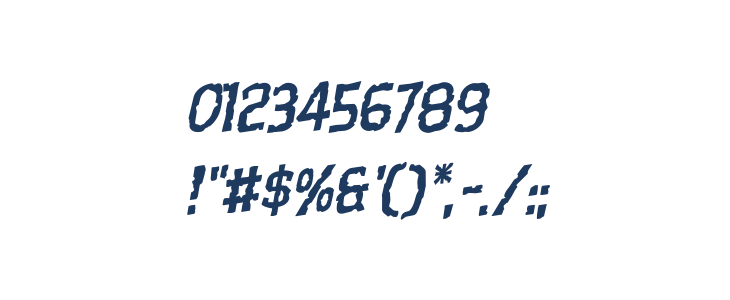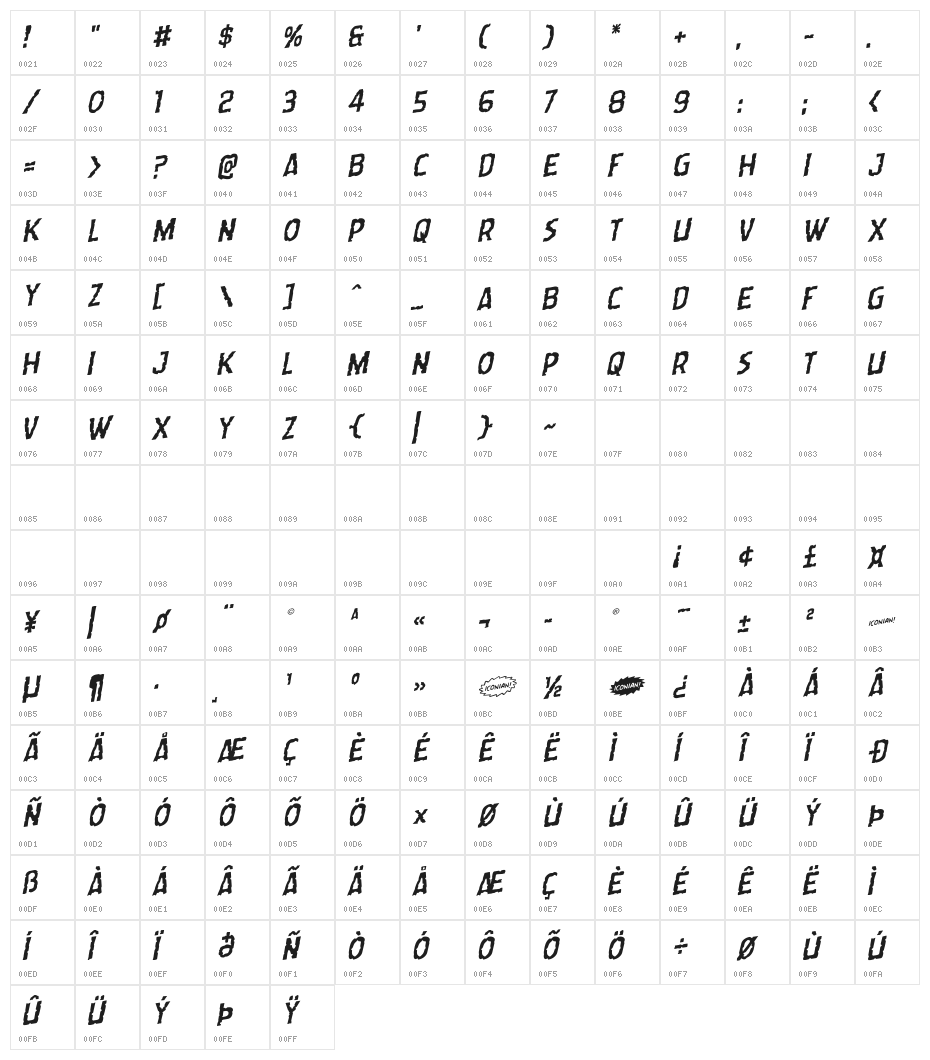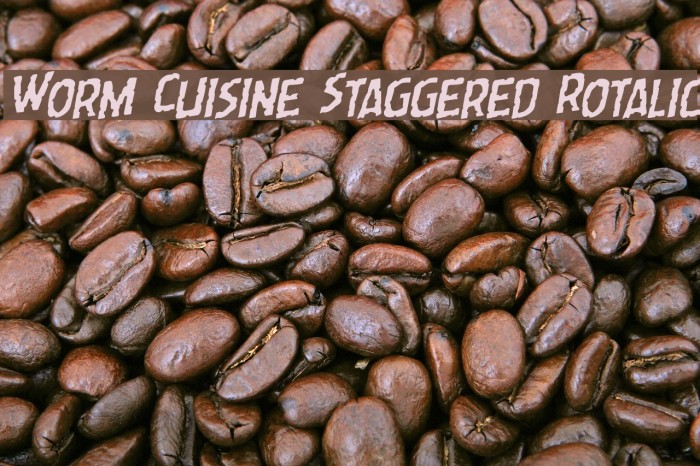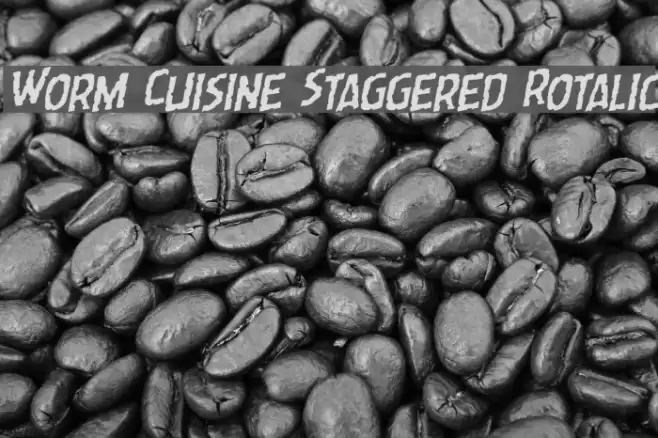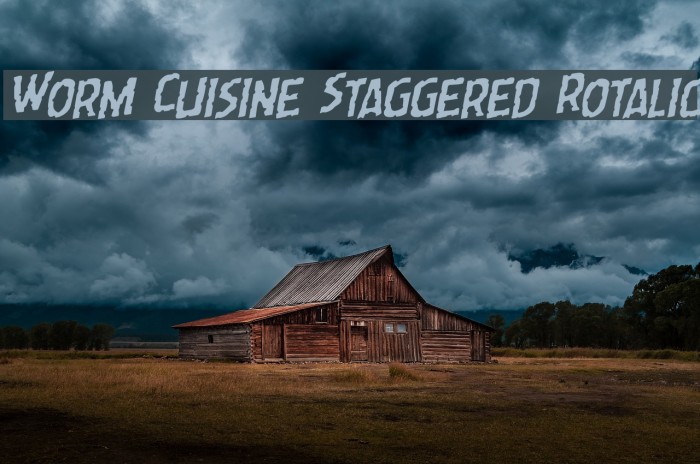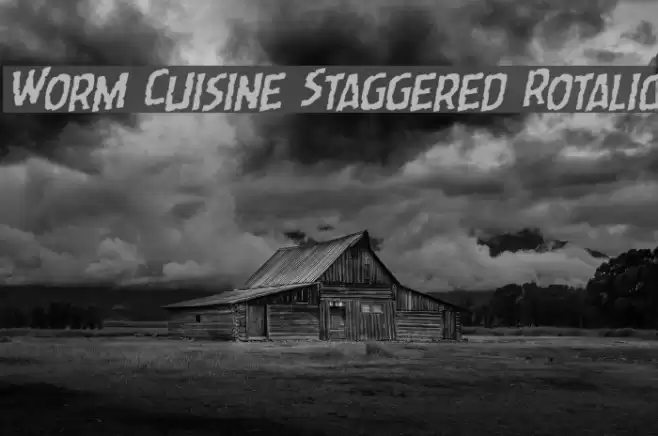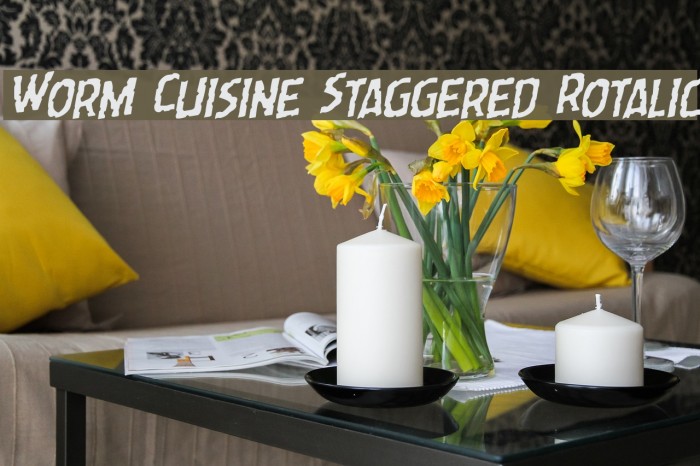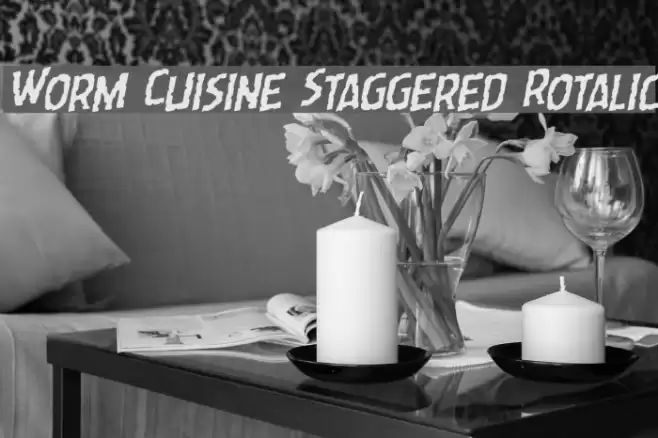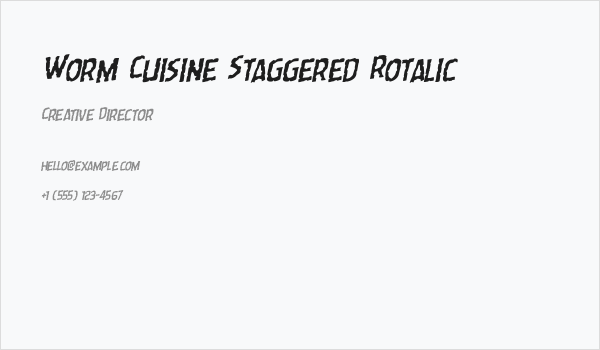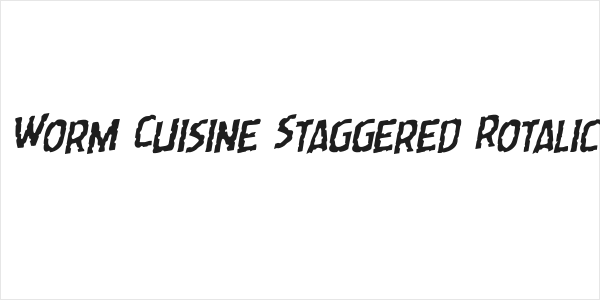
Worm Cuisine Staggered Rotalic Font
Worm Cuisine Staggered Rotalic Description
This font features a bold and dynamic style with a staggered, italicized appearance. The characters are designed with a rough, textured edge, giving them a hand-drawn, energetic feel. The uppercase and lowercase letters maintain a consistent slant, enhancing the sense of motion and urgency. The numbers and special characters follow the same stylistic approach, ensuring uniformity across all elements. This font's unique design makes it stand out, offering a visually striking option for creative projects.